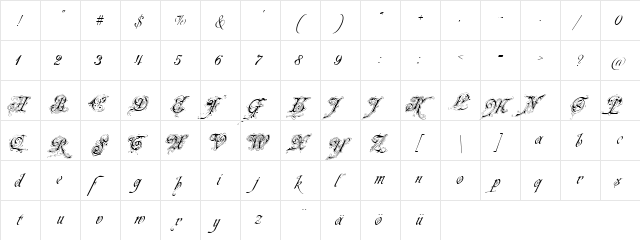
Neue Zier Schrift Regular
Design Context for Neue Zier Schrift Typeface
Neue Zier Schrift is a composed and adaptable typeface that performs quietly and consistently across a wide range of design contexts.